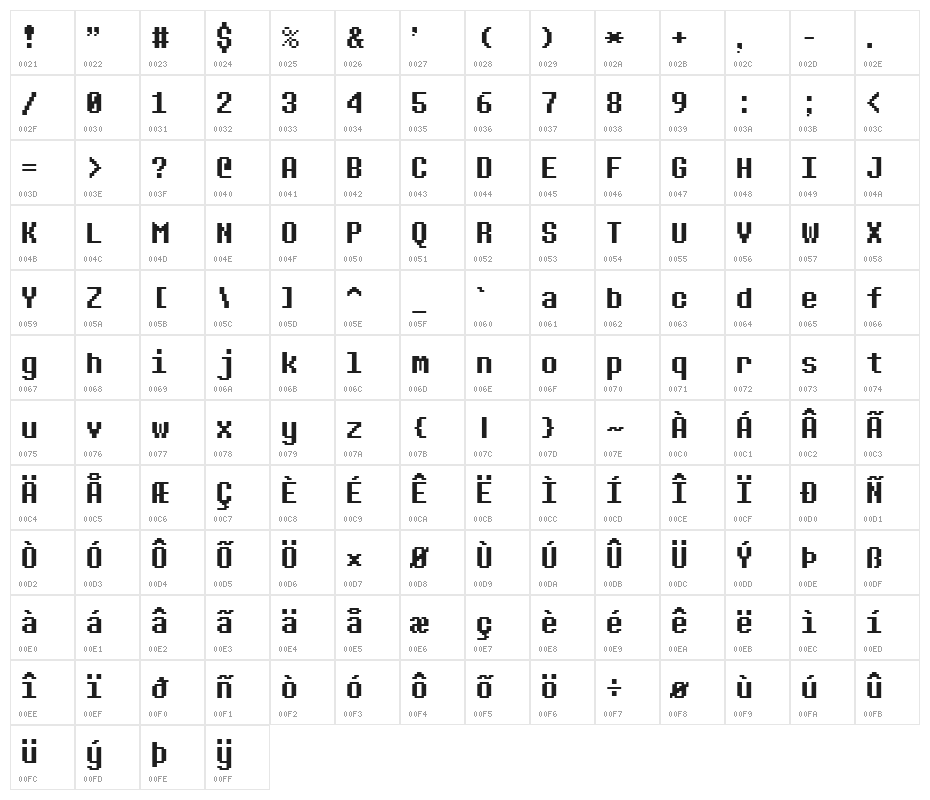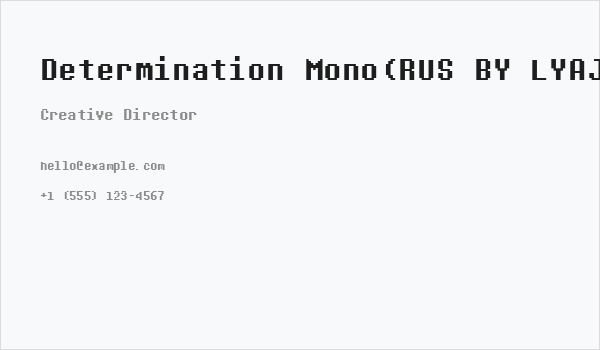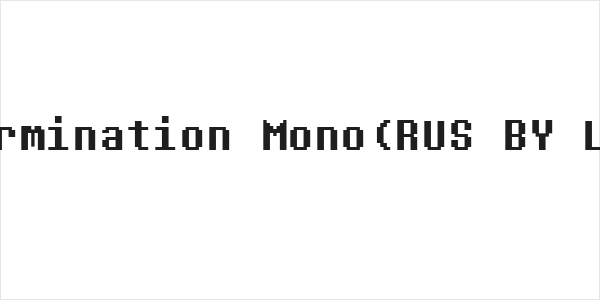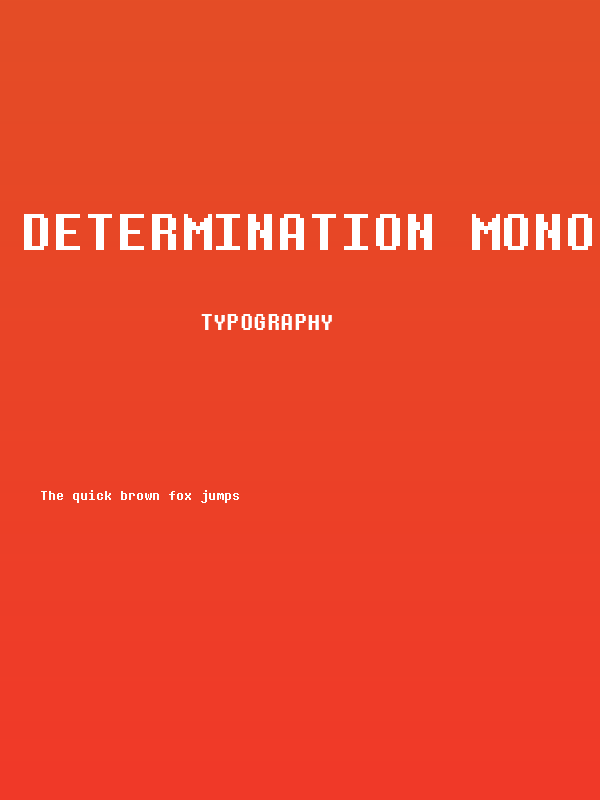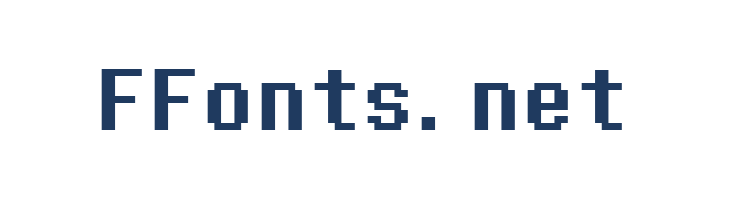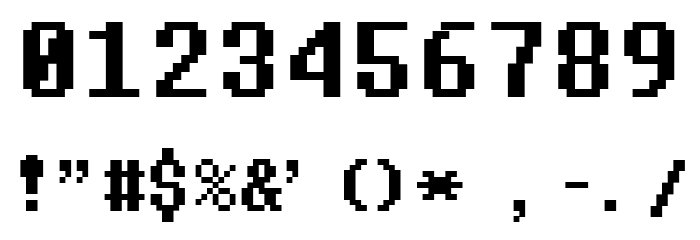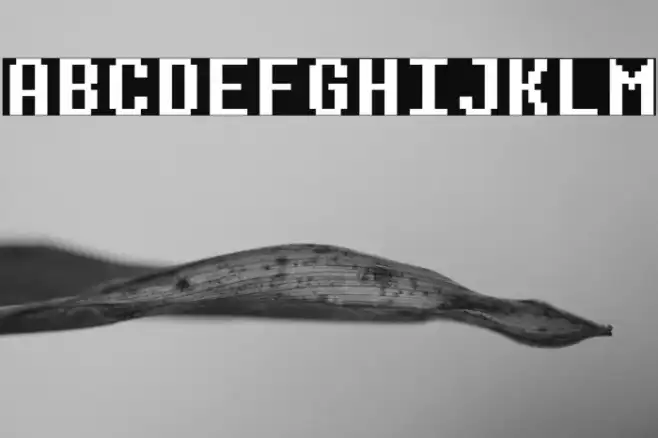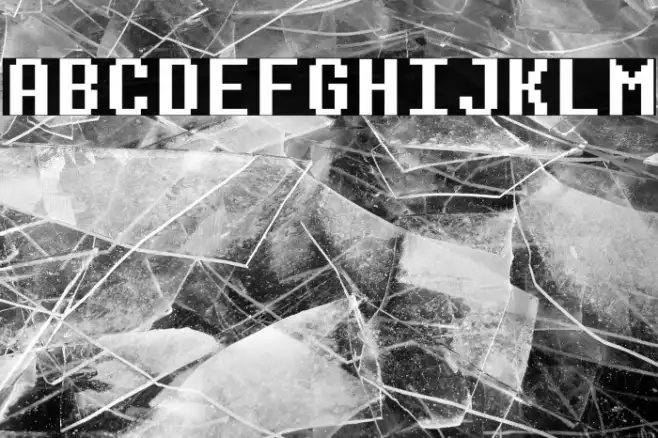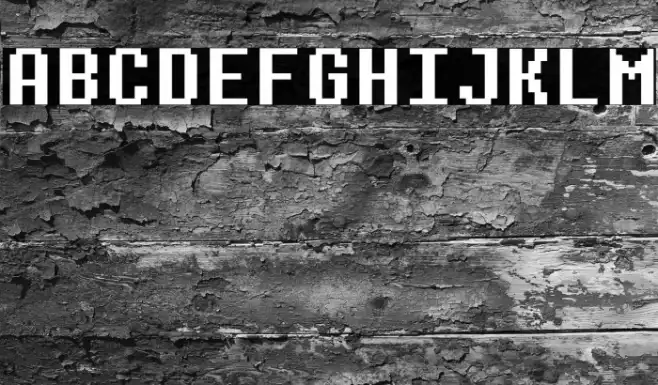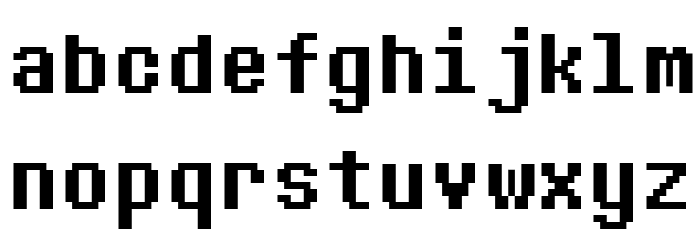
Determination Mono(RUS BY LYAJK Font
| Name | Determination Mono(RUS BY LYAJK |
| Schriften Familie | Determination Mono(RUS BY LYAJK |
| Kategorien | Pixel |
| Gesamtstil | Vintage |
| Anwendungsfall | Logos, Digital displays, Coding environments |
| Vorgeschlagene Projekte | Ideal for retro-themed designs, video game graphics, coding displays, and digital art projects. |